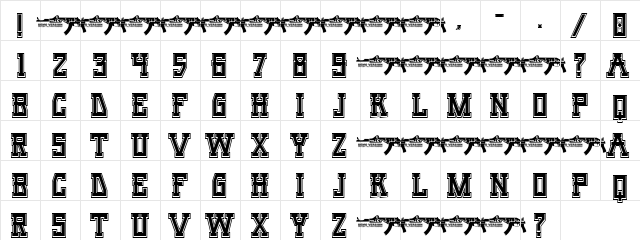
Umar Slab College Font Preview
Design Context for Umar Slab College Typeface
Umar Slab College has the bold swagger of sports branding: strong, assertive letterforms designed to dominate headlines and jerseys alike.
A natural choice for gym brands, fantasy sports, jersey lettering, and action-driven headlines.
Pro Tip: Use Umar Slab College in all-caps headlines where its athletic energy can fully express itself. Pair with a solid, simple sans for supporting text.